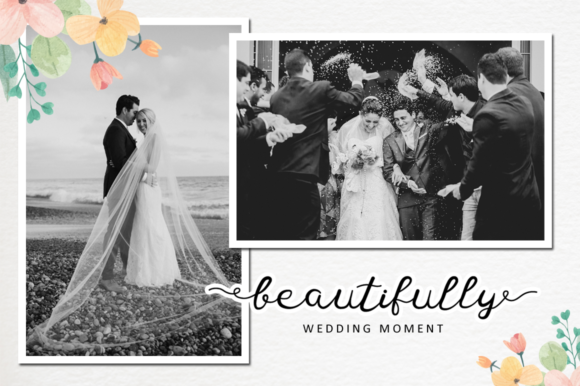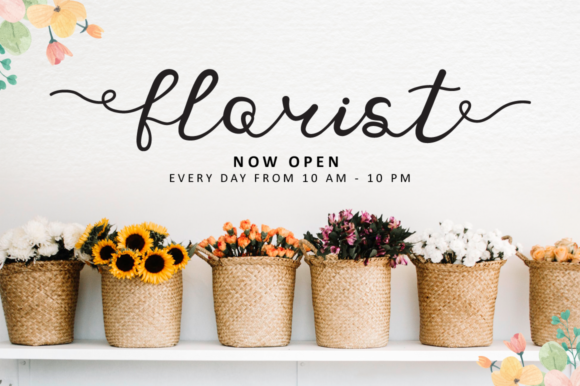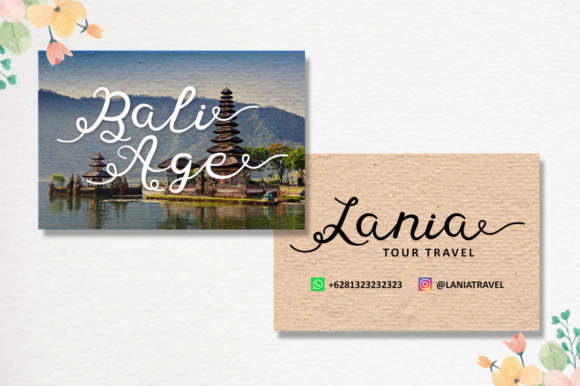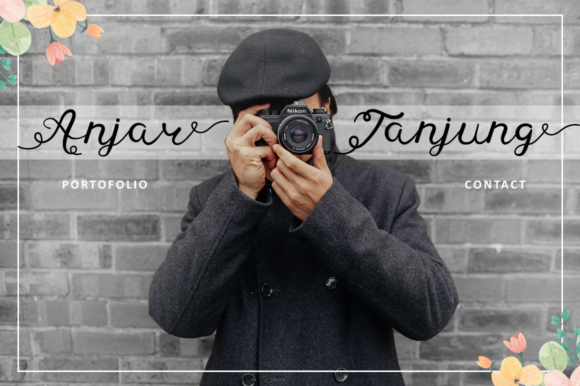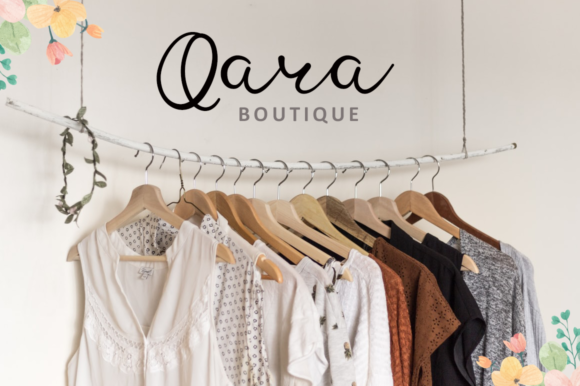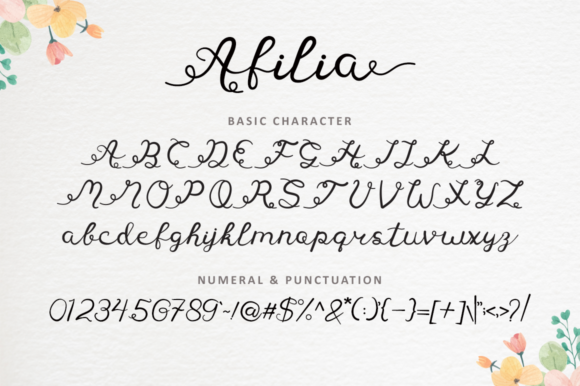
Afilia Font: The Cute and Casual Handwritten Font for Creative Projects
Are you a designer, crafty DIY enthusiast, or social media influencer looking for a font that can add a personal touch to your creative projects? Look no further than Afilia Font, a beautiful and versatile handwritten font that is sure to delight. In this article, we’ll take a closer look at Afilia Font, its features, and how you can use it to elevate your designs and make them stand out.
What is Afilia Font?
Afilia Font is a cute and casual handwritten font that exudes a friendly and approachable feel. Its gorgeous swashes and ligatures make it incredibly versatile, perfect for a wide range of creative projects, from Instagram posts and stories to calligraphy scripts and DIY crafts. Whether you’re a professional designer or a hobbyist, Afilia Font is sure to inspire your creativity and help you bring your ideas to life.
Key Features of Afilia Font
Afilia Font comes with a range of features that make it a standout font for creative projects. Some of its key features include:
- Gorgeous Swashes: Afilia Font features beautiful swashes that add a touch of elegance and sophistication to your designs.
- Ligatures: The font also includes ligatures, which help to create a more natural and fluid look.
- Cute and Casual: Afilia Font has a cute and casual feel that’s perfect for creating friendly and approachable designs.
- Handwritten: The font has a handwritten feel that’s perfect for creating personal and unique designs.
Uses for Afilia Font
Afilia Font is a versatile font that can be used for a wide range of creative projects, including:
- Instagram Posts and Stories: Use Afilia Font to add a personal touch to your Instagram posts and stories.
- Calligraphy Scripts: Afilia Font is perfect for creating beautiful calligraphy scripts for DIY projects.
- DIY Crafts: Use Afilia Font to add a personal touch to your DIY crafts, such as handmade cards and gift tags.
- Graphic Design: Afilia Font can be used for a wide range of graphic design projects, from brochures and flyers to posters and banners.
Tips for Using Afilia Font
Here are some tips for using Afilia Font in your creative projects:
- Experiment with Swashes: Afilia Font’s swashes are a great way to add a touch of elegance and sophistication to your designs. Experiment with different swash combinations to find the one that works best for your project.
- Use Ligatures: Afilia Font’s ligatures help to create a more natural and fluid look. Use them to add a touch of realism to your designs.
- Mix and Match: Afilia Font can be paired with a wide range of other fonts to create a unique and interesting look. Experiment with different font combinations to find the one that works best for your project.
Afilia Font is a beautiful and versatile handwritten font that’s perfect for creative projects. Its gorgeous swashes and ligatures make it incredibly versatile, and its cute and casual feel is sure to delight. Whether you’re a designer, crafty DIY enthusiast, or social media influencer, Afilia Font is sure to inspire your creativity and help you bring your ideas to life. So why wait? Download Afilia Font today and start creating your own unique and beautiful designs!